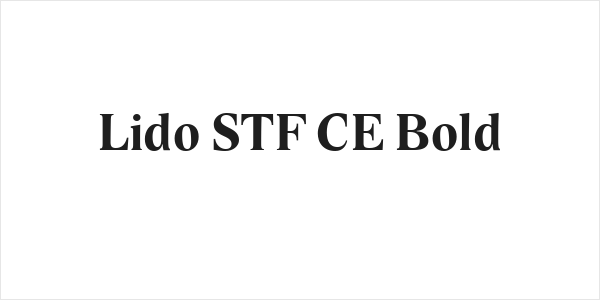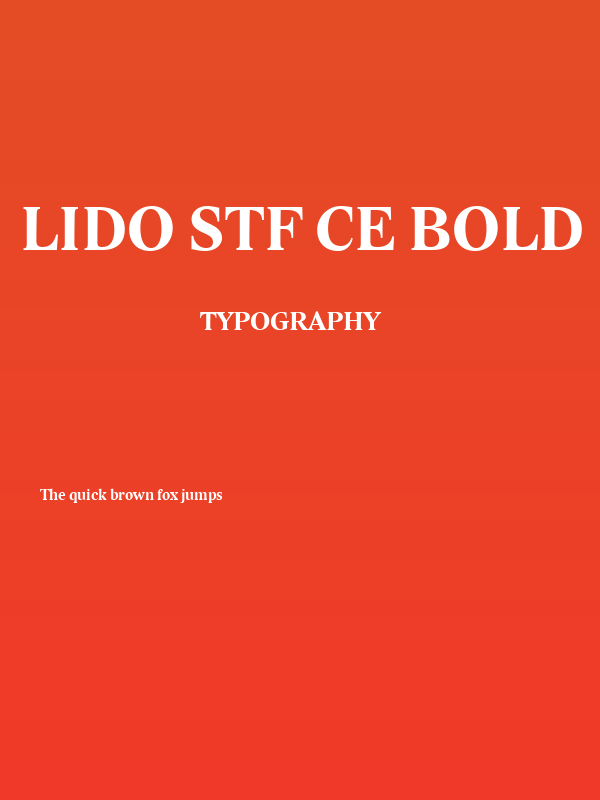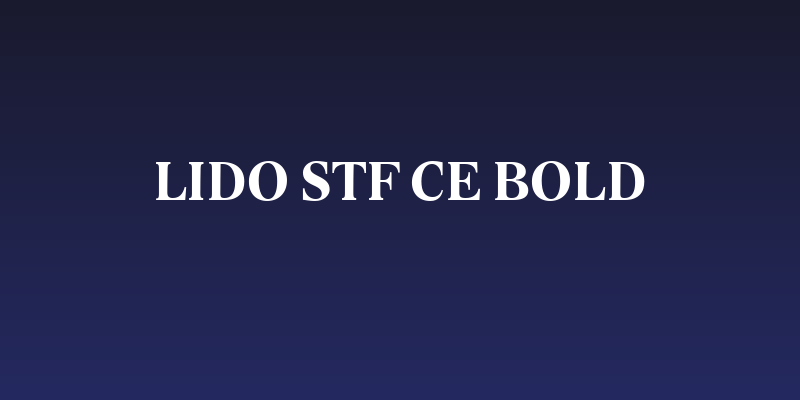
Lido STF CE Bold Font
Lido STF CE Bold Description
This font showcases a classic serif style with bold, strong strokes that convey a sense of authority and tradition. The characters are well-defined with sharp serifs that enhance readability and give a formal appearance. The uppercase letters are slightly taller than average, providing a commanding presence, while the lowercase letters maintain a consistent height, ensuring uniformity across text. The numerals are clear and distinct, making them suitable for various applications. Special characters are elegantly integrated, maintaining the font's overall aesthetic. This font is versatile, suitable for both print and digital media, where a classic and professional look is desired.
| Proposed Projects | Ideal for book covers, formal invitations, corporate branding, and editorial headlines. |